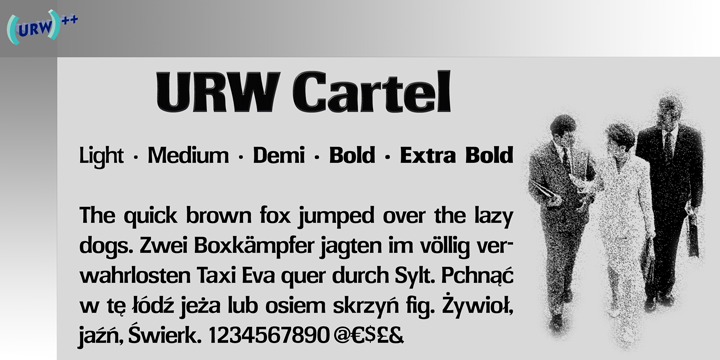
The Cartel Font is a bold and impactful typeface, designed to convey a sense of raw power, urban edge, or a strong, no-nonsense attitude. Its robust forms, often with a slightly condensed or industrial feel, make it an excellent choice for action movie posters, gaming titles, streetwear branding, automotive advertising, event promotions that demand attention, and any design that aims for a commanding, contemporary presence. Whether you’re crafting an aggressive slogan or a brand identity that embodies raw strength, this font will inject your project with an undeniable force and an edgy, modern sensibility.
What makes the Cartel Font so exciting is its ability to instantly command attention and project an aura of unyielding determination. It's perfect for designers who want to evoke a sense of defiance, resilience, or a cutting-edge, urban aesthetic. This font stands out by offering a unique visual voice that is both intimidating and captivating, making any text it graces feel monumental and significant. Its strong, often unadorned structure ensures high legibility even at its extreme weights, guaranteeing that your message is delivered with maximum impact and clarity, perfect for making a bold statement.
The Cartel Font typically offers a focused set of features to support its distinctive style. While specific offerings may vary depending on the font package, you can generally expect to find a Regular weight, often accompanied by a Bold or Heavy version to amplify its inherent strength and imposing presence. Some versions of the Cartel Font Free Download might also include alternate characters or unique stylistic details that enhance its industrial or urban appearance, allowing for even greater thematic depth and creative flexibility. These features ensure that the Cartel Font can be adapted to almost any design requirement where a strong, raw, or powerfully rebellious statement is desired, maintaining its consistent impactful charm throughout your project.